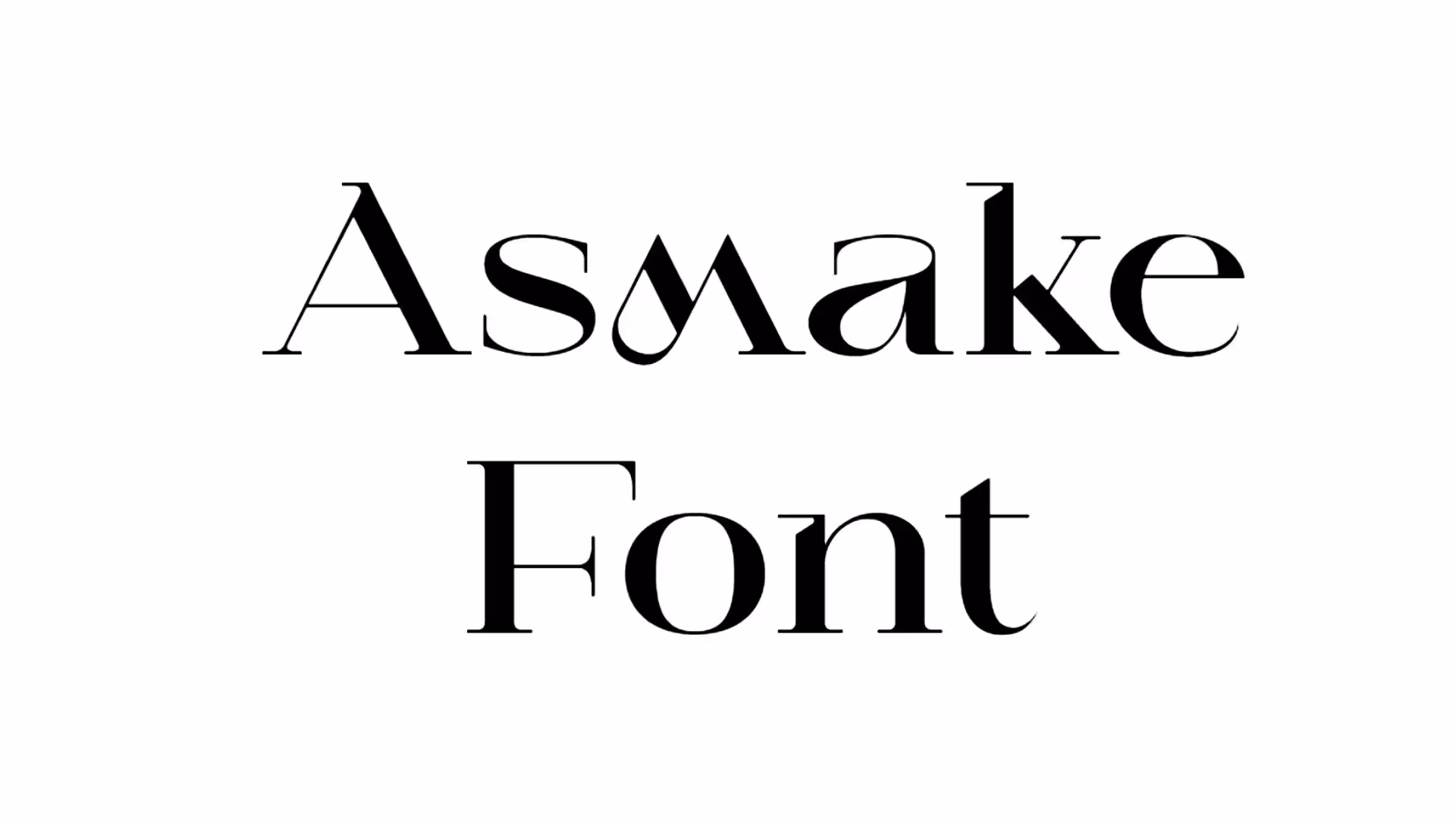
Asmake
Asmake is a serif font made by Saiful Anwar + Sealoung (2026). It has the traditional, bookish feel of type you see in novels, newspapers and long-established brands. You can download it for free and test it with your own words in the preview above.
What You Can Type With Asmake
Asmake covers the full alphabet in upper and lowercase, plus all ten numbers, so you can set names, dates and prices without switching fonts. Everyday marks like &, !, ? and @ are there too. Thanks to its accented letters, it also works for Spanish, French, German, Portuguese and Italian, not just English.
Where Asmake Works Best
Think of Asmake for book covers, magazine headlines and classic branding. Serif fonts shine in headlines and printed text. For long paragraphs on phones, check that it still reads well at small sizes.
Does Asmake support accented letters?
Yes. Asmake includes the accented letters needed for Spanish, French, German, Portuguese and Italian, so it works for more than just English.